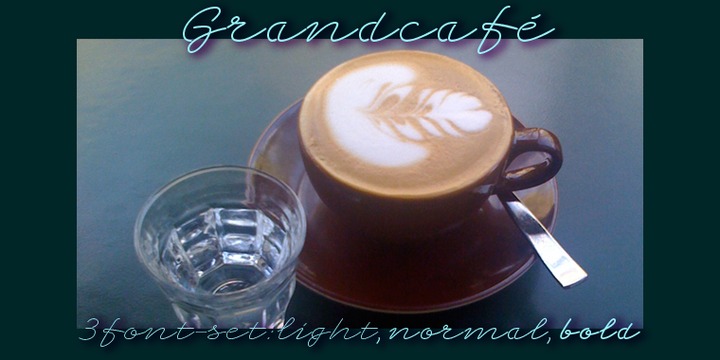
• Grandcafe
Grandcafe was inspired by neon lettering dating back to the fifties. The glasstubes made long loops neccessary so a whole set of new typefaces in neon-tubing developed. My version has a very elegant touch to it. I enjoyed doing this one.